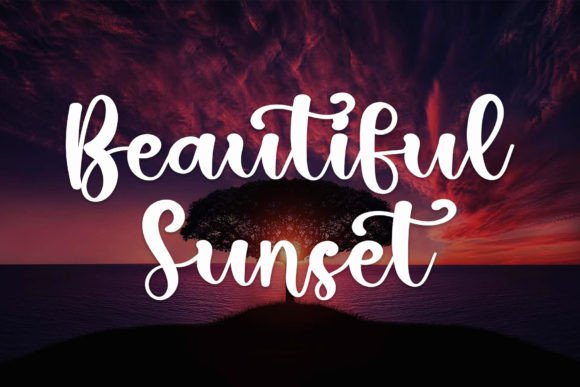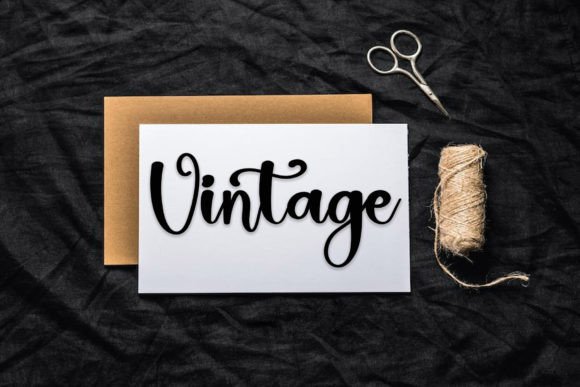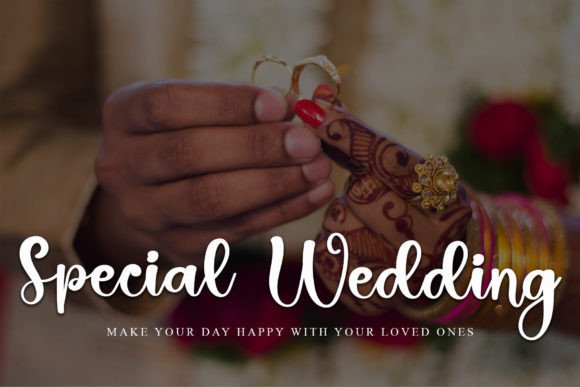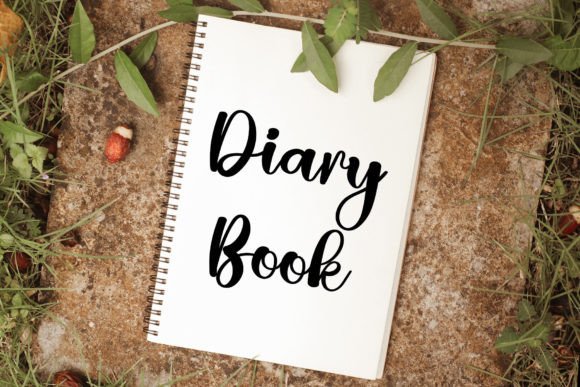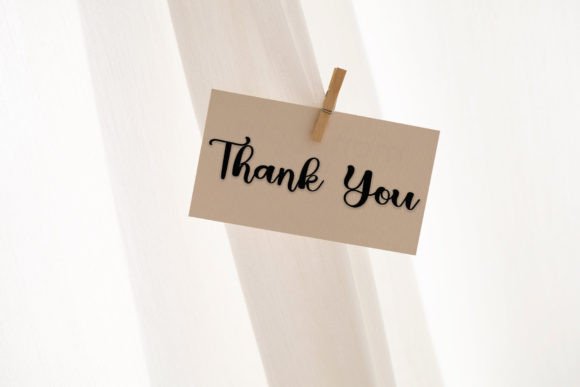
Discover the Charm of Happy Watching Font: Elevate Your Designs with Elegance
Are you on the hunt for a font that adds a touch of elegance and sophistication to your projects? Look no further than the Happy Watching font, a stunning handwritten typeface that is sure to capture your heart. With its unique blend of neatness and beauty, this font is perfect for designers and crafters seeking to create visually appealing and timeless designs.
The Distinctive Style of Happy Watching Font
Happy Watching font is described by its incredibly distinct and timeless style, which sets it apart from other fonts. Its elegant touch makes it an excellent choice for a wide range of projects, from wedding invitations and branding materials to social media graphics and digital art. The font’s neat and beautiful handwritten style ensures that your designs will exude a sense of refinement and poise.
Why Fall in Love with Happy Watching Font?
There are many reasons why designers and crafters will fall in love with Happy Watching font. Here are just a few:
- Unique Style: Happy Watching font boasts a unique and distinctive style that will make your designs stand out from the crowd.
- Elegant Touch: The font’s elegant touch adds a level of sophistication to your designs, making them perfect for high-end projects.
- Timeless Appeal: The font’s timeless style ensures that your designs will remain relevant and stylish for years to come.
- Versatility: Happy Watching font is versatile and can be used for a wide range of projects, from digital designs to print materials.
Perfect for Your Favorite Projects
Happy Watching font is perfect for a variety of projects, including:
- Wedding Invitations: Add a touch of elegance to your wedding invitations and save the dates with Happy Watching font.
- Branding Materials: Use Happy Watching font to create stunning branding materials, such as logos, business cards, and letterheads.
- Social Media Graphics: Elevate your social media graphics with Happy Watching font and make your posts stand out.
- Digital Art: Happy Watching font is perfect for digital art projects, such as illustrations, animations, and more.
Tips for Using Happy Watching Font
Here are some tips for using Happy Watching font to create spectacular designs:
- Pair with Other Fonts: Pair Happy Watching font with other fonts to create a unique and visually appealing design.
- Experiment with Colors: Experiment with different colors to find the perfect combination that complements Happy Watching font.
- Use for Headings and Titles: Use Happy Watching font for headings and titles to add a touch of elegance to your designs.
In conclusion, Happy Watching font is a beautiful and elegant handwritten font that is perfect for designers and crafters seeking to create stunning designs. With its unique style, elegant touch, and timeless appeal, Happy Watching font is sure to become a favorite in your font collection. So why wait? Fall in love with Happy Watching font and elevate your designs to new heights!